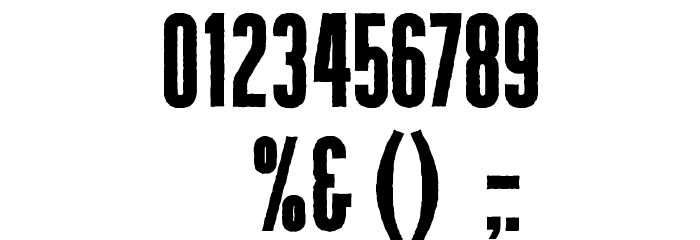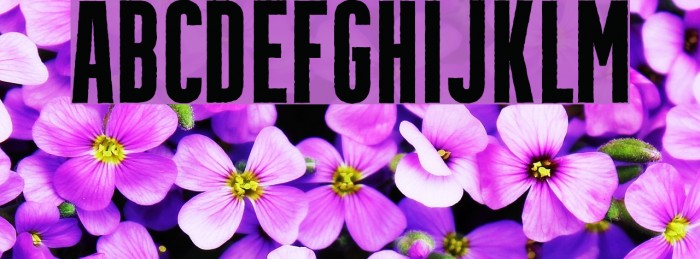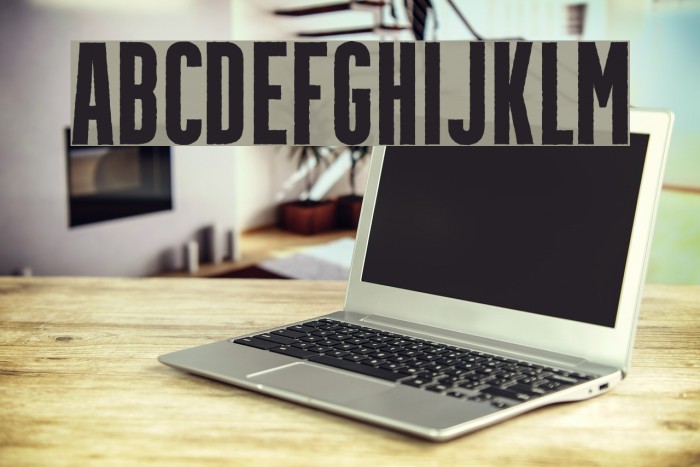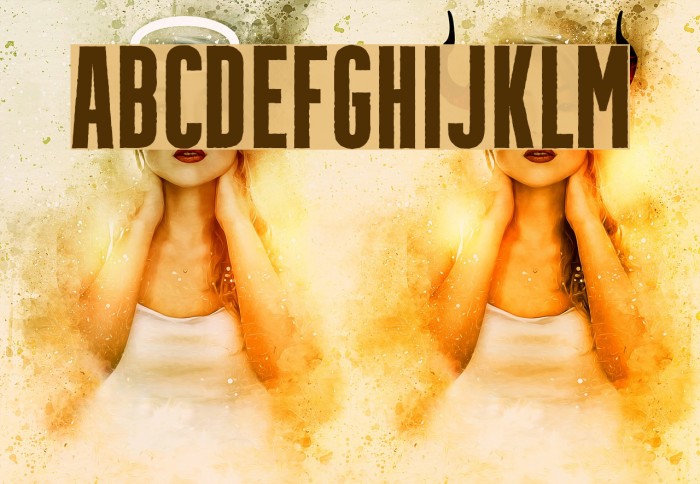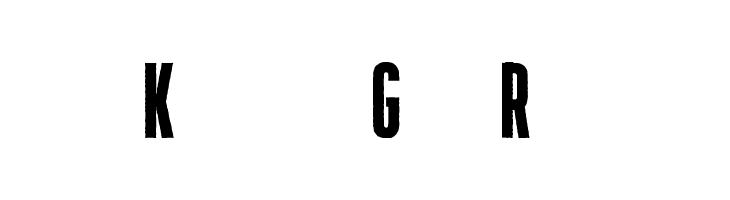
Krechanstaud Gothic Rough Font
This font features a bold and rugged design, characterized by its strong, block-like letterforms with a slightly distressed texture. The uppercase letters are prominent and commanding, making them ideal for attention-grabbing headlines. The numbers and special characters maintain the same boldness, ensuring consistency throughout. The rough edges give it a vintage, industrial feel, suitable for projects that require a touch of grit and authenticity. Its bold weight and condensed width make it perfect for impactful designs where space is limited.
A bold, rugged font with a distressed, vintage look.
- Proposed Projects: Ideal for posters, logos, branding, and any design needing a strong, vintage industrial aesthetic.
- Overall Style: Vintage, Industrial